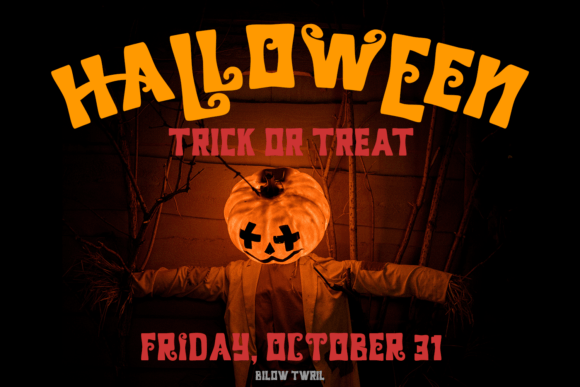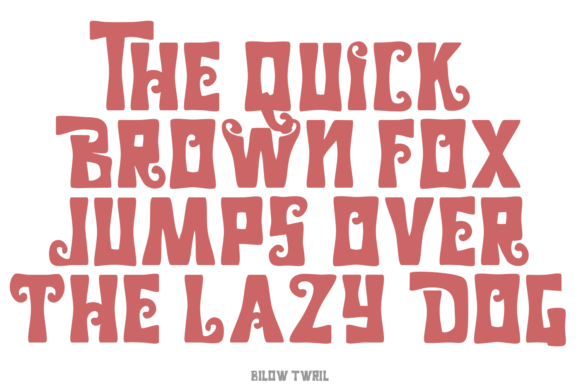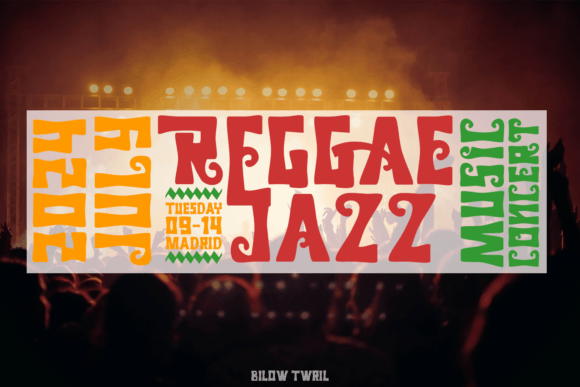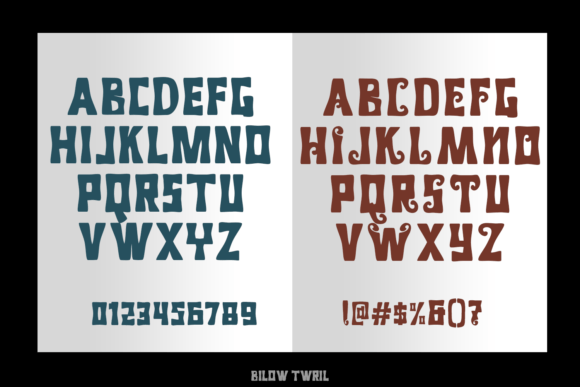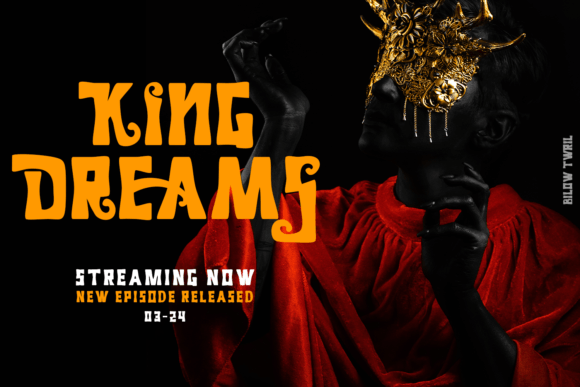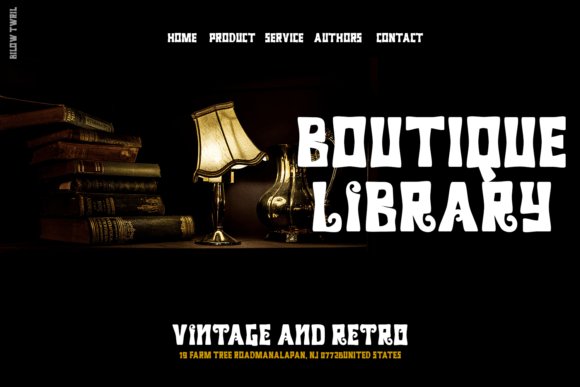
Introducing Billow Twirl: A Charming Vintage Retro Display Font
Are you looking for a font that can add a touch of nostalgia and whimsy to your design projects? Look no further than Billow Twirl, a charming vintage retro display font that is sure to transport your audience to a delightful world of vintage charm. In this article, we’ll take a closer look at the Billow Twirl font, its features, and how you can use it to elevate your designs.
A Blast from the Past: The Inspiration Behind Billow Twirl
Billow Twirl is a font that draws inspiration from the elegant typography of the mid-20th century. Its curvaceous and swirling letterforms are reminiscent of the classic fonts used in vintage posters, advertisements, and packaging. The font’s designer aimed to capture the essence of this bygone era, infusing Billow Twirl with a sense of nostalgia and playfulness.
What Makes Billow Twirl So Special?
So, what sets Billow Twirl apart from other fonts? Here are a few features that make it a standout:
- Curvaceous letterforms: Billow Twirl’s letters are characterized by smooth, flowing curves that give the font its distinctive look.
- Playful yet sophisticated: The font strikes the perfect balance between playfulness and sophistication, making it suitable for a wide range of design projects.
- Vintage charm: Billow Twirl’s retro aesthetic is sure to evoke memories of a bygone era, adding a touch of nostalgia to your designs.
Using Billow Twirl in Your Design Projects
Billow Twirl is a versatile font that can be used in a variety of design projects, including:
- Branding: Add a touch of vintage charm to your brand’s identity with Billow Twirl.
- Posters: Create eye-catching posters that evoke a sense of nostalgia with this charming font.
- Invitations: Make your invitations stand out with Billow Twirl’s elegant and playful letterforms.
- Packaging: Add a touch of retro flair to your product packaging with this unique font.
Tips for Getting the Most Out of Billow Twirl
Here are a few tips for using Billow Twirl effectively in your design projects:
- Use it as a display font: Billow Twirl is best used as a display font, where its unique letterforms can be showcased.
- Experiment with colors: Try pairing Billow Twirl with bold, bright colors to create a striking contrast.
- Mix and match: Combine Billow Twirl with other fonts to create a unique and visually appealing typography.
Billow Twirl is a charming vintage retro display font that is sure to add a touch of whimsy and personality to any design project. With its curvaceous and swirling letterforms, playful yet sophisticated style, and vintage charm, this font is perfect for designers and crafters looking to evoke a sense of nostalgia in their work. Whether you’re working on branding, posters, invitations, or other creative endeavors, Billow Twirl is a great choice.
Get Ready to Twirl into the World of Vintage Design